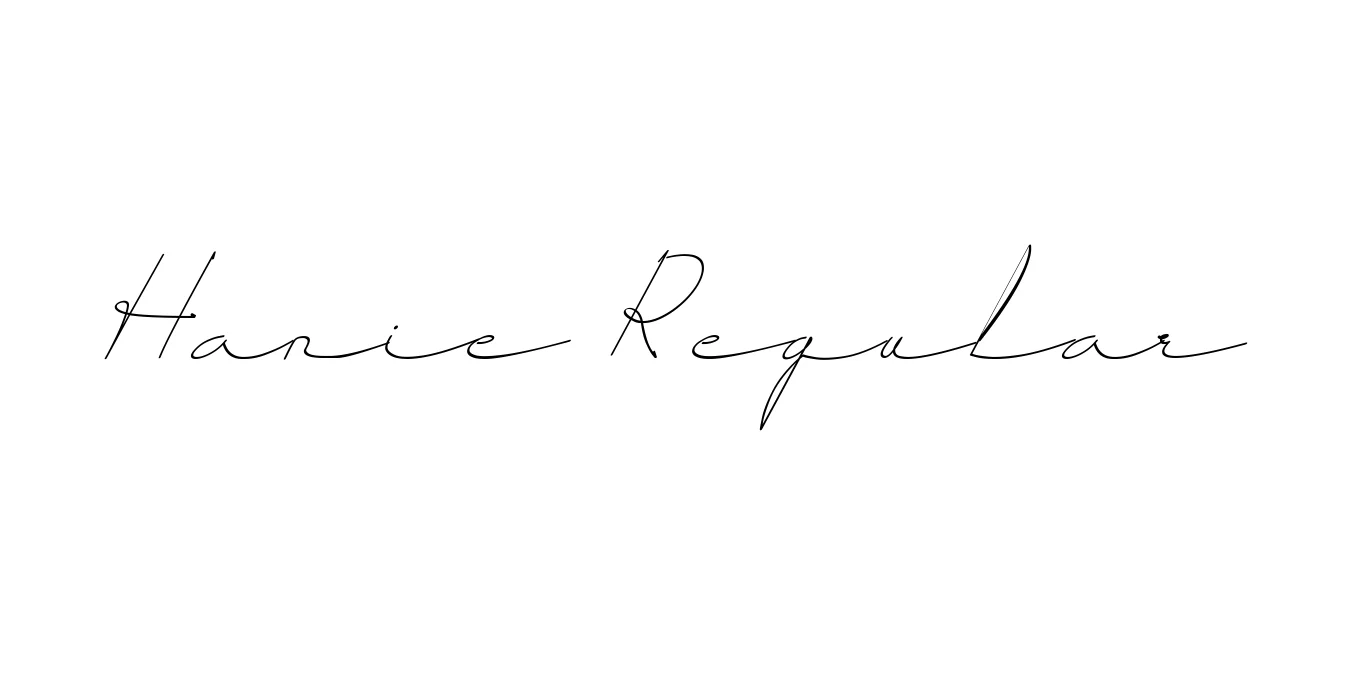
Hanie Regular
Designed by Creatype Studio
| Font Name | Hanie |
| Designer | Creatype Studio |
Hanie Regular is a sophisticated script typeface that embodies elegance through its natural fluid strokes and refined curves. Developed to mimic authentic handwriting, it features delicate ligatures and a balanced rhythm that makes it an exceptional choice for high-end branding and creative projects that require a personal touch.
The font has gained significant popularity within the wedding industry and modern digital marketing sectors due to its readability and artistic flair. Its clean yet expressive character set allows designers to craft professional-looking logos, social media graphics, and stationery effortlessly, ensuring every design feels unique and artisanal.
Hanie Regular Best Uses
Ideal for creating elegant invitations, RSVP cards, and personalized envelopes.
Perfect for crafting professional logos for fashion, beauty, or luxury lifestyle brands.
Great for designing stylish quotes, Instagram stories, and Pinterest-worthy graphics.
Suitable for upscale product labels, boutique hangtags, and luxury goods packaging.